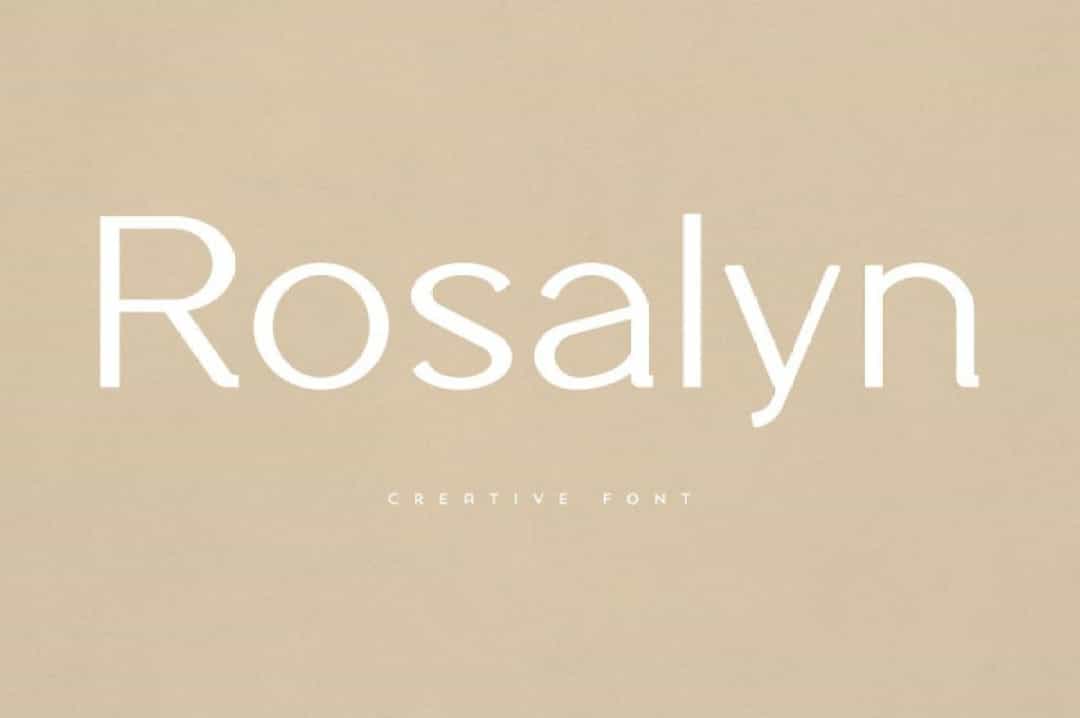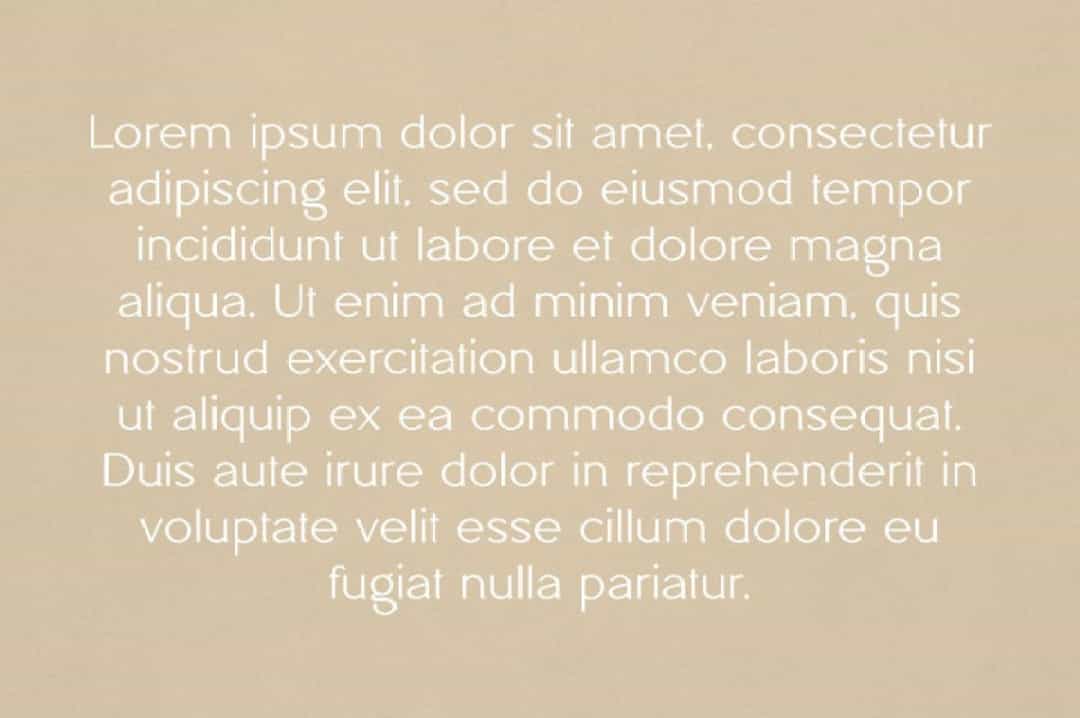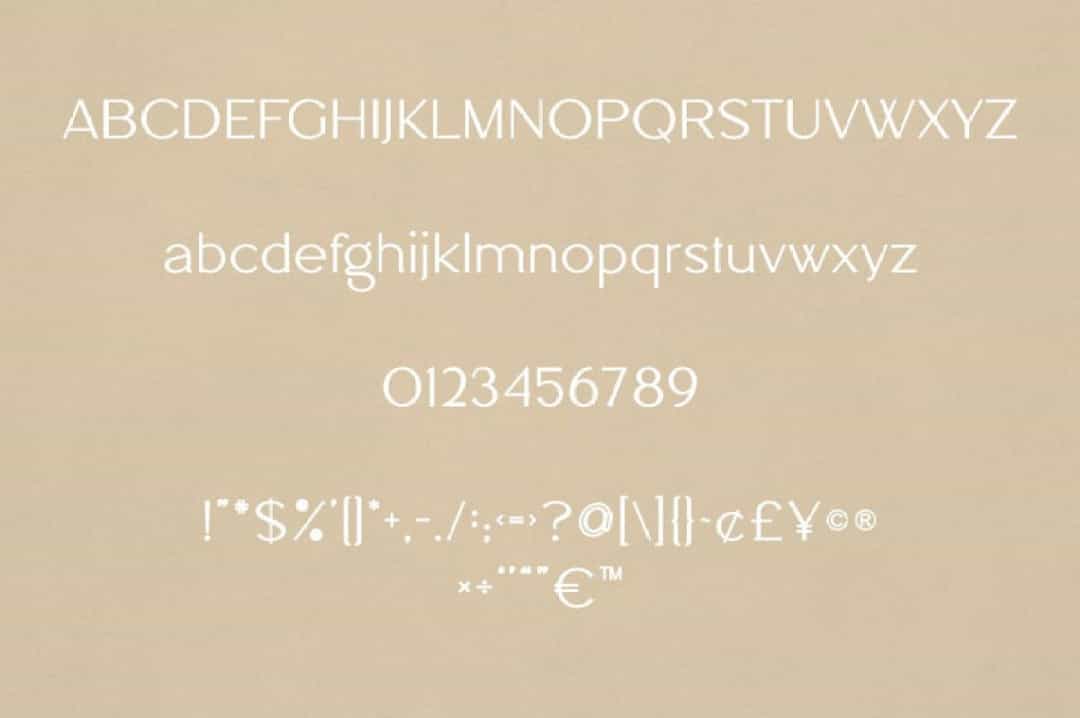
Rosalyn is a stylish and adaptable sans serif font with an unforgettable typographic style! Perfect for headlines, logos, branding or simple text use! Rosalyn It can add flair and class to any headline or logo design or branding campaign – or as an eye-catching text overlay for images!